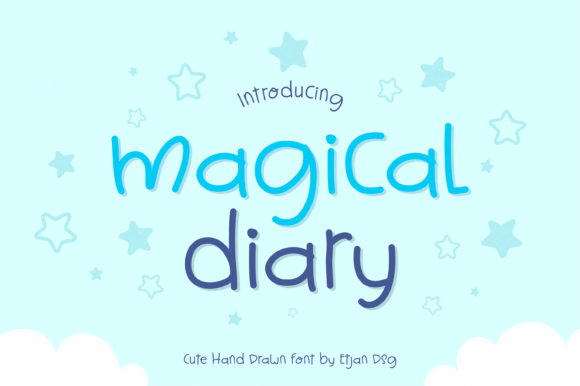
Unleash your inner child's imagination with Magical Diary Font, a whimsical and playful script font designed to bring life to your creative projects. This enchanting font, inspired by the magic of childhood diaries, will transport you to a world of wonder and adventure.
Picture this: you're a child again, sitting at your desk, pen in hand, pouring your heart out into your diary. The words flow effortlessly, capturing every thought, feeling, and dream. With Magical Diary Font, you can relive that same sense of wonder and excitement in your digital creations.
This charming font is perfect for adding a touch of whimsy and nostalgia to your designs. Its handwritten style evokes a sense of authenticity and realism, making it ideal for chalkboard quotes, teaching materials, and any project that calls for a personal touch.
Imagine the possibilities: create enchanting invitations for your child's birthday party, design heartwarming posters for your classroom, or craft heartfelt greeting cards that will make your loved ones smile. With Magical Diary Font, the creative possibilities are endless.
So, embark on a magical journey with Magical Diary Font and let your imagination soar. Whether you're a seasoned designer or just starting out, this enchanting font is sure to add a touch of magic to your creations.